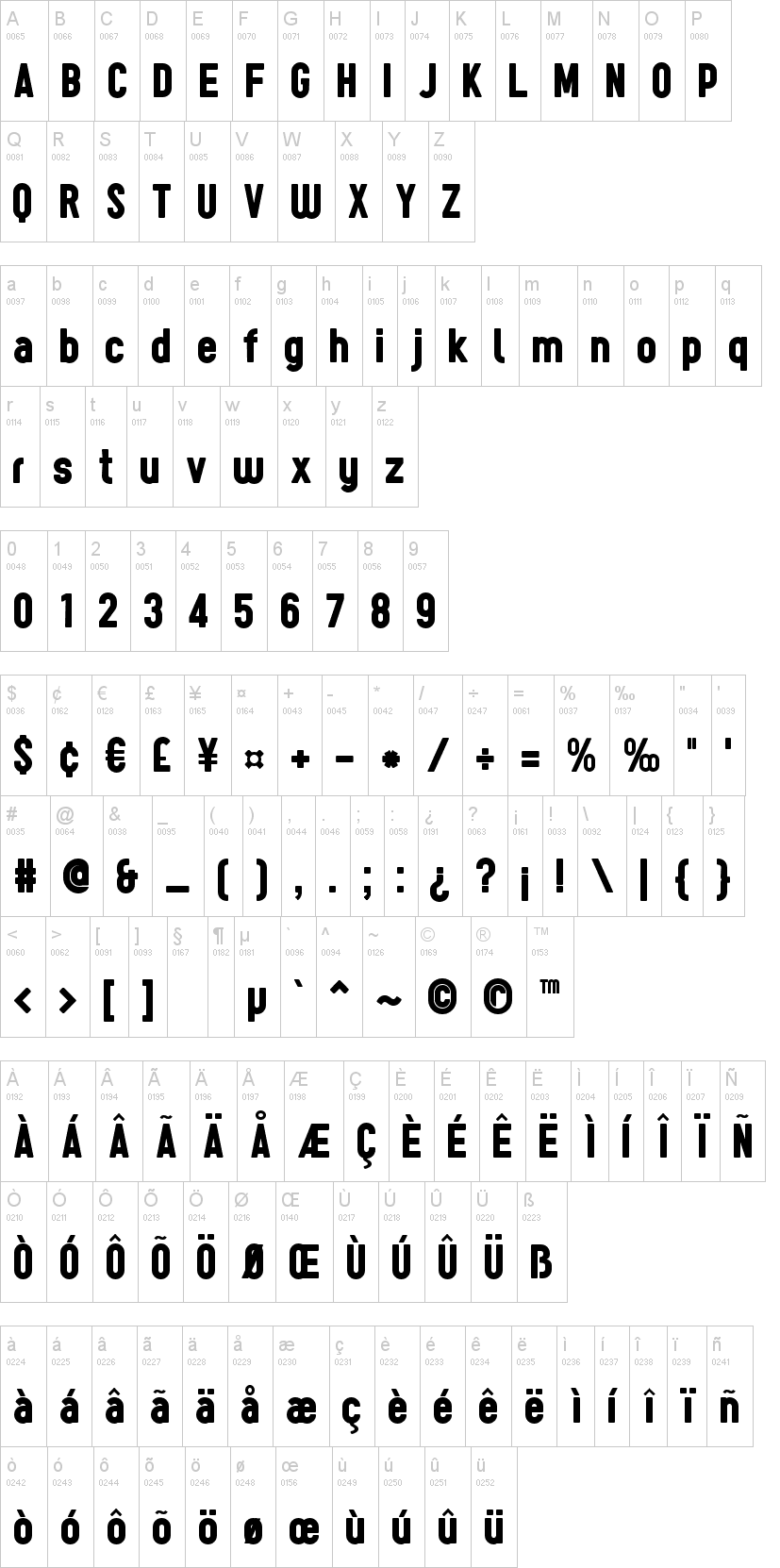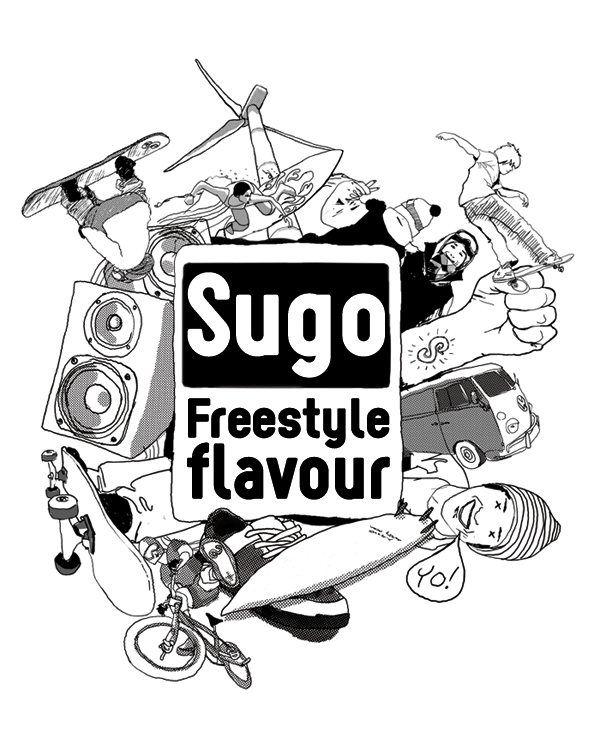
Шрифт Sugo
Created for a skateboard shop logo Sugo is a headline font with a blocky shape, a freestyle finish and a street attitude.
Its high readibility and contemporary feel make it the right typeface to mix personality and dynamism.